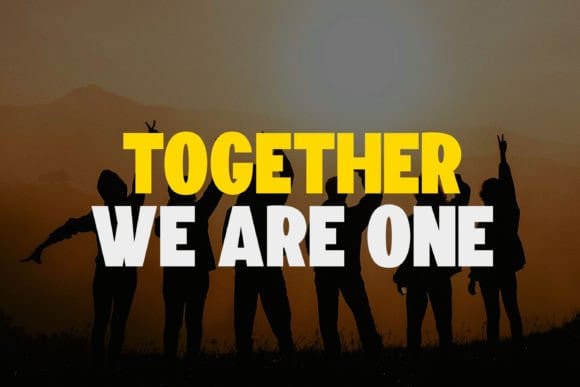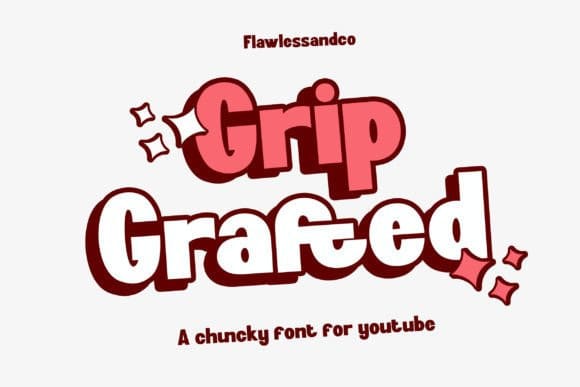
Grip Grafted Font
Grip Grafted Font a chunky font for Youtube. Make a statement with “Grip Grafted,” a bold and chunky font designed to command attention on YouTube. With its strong presence and distinctive style, GripGrafted ensures that your video titles and thumbnails stand out in the crowded digital landscape, enticing viewers to click and engage.